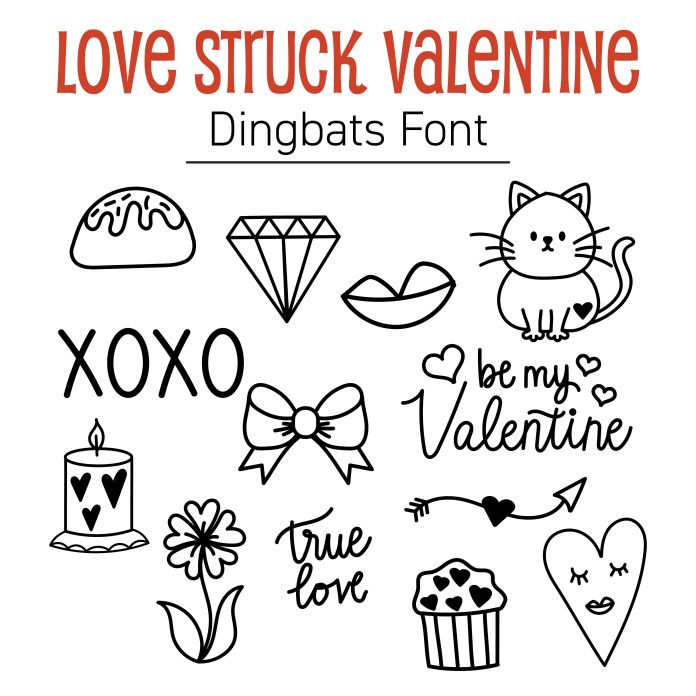
Love Struck is a charming hand-drawn dingbat font filled with Valentine-themed icons to make your romantic projects shine! Featuring delightful symbols like hearts, arrows, love letters, roses, cuddly stuffed animals, and sweet treats, this font is perfect for celebrating love and affection. Use Love Struck to design Valentine’s Day cards, wedding invitations, anniversary crafts, scrapbooking embellishments, or romantic gift tags. Its playful style adds a whimsical touch to any design. Ideal for creating digital graphics, personalized gifts, or DIY décor. Each design can be easily resized without affecting the quality. Add this fun design to your cart today!